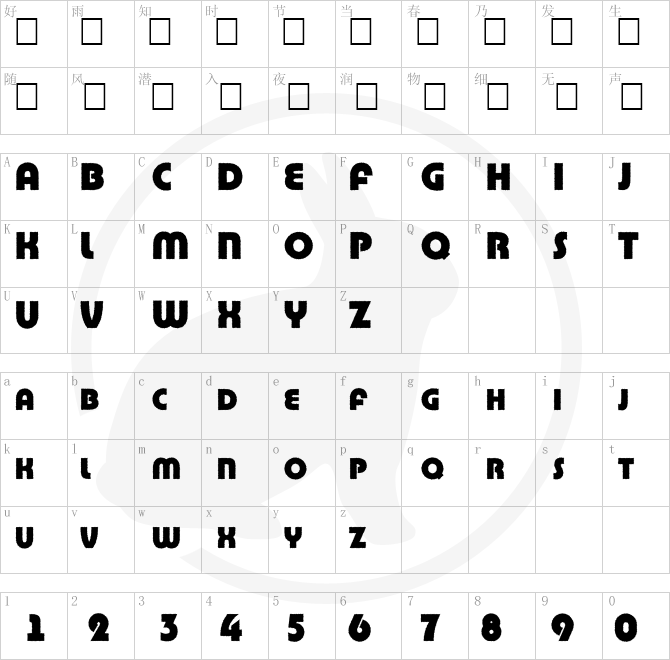
- Font Name:a_BighausTitulRg
a_BighausTitulRg-ExtraBold.ttf is a very beautiful artistic font, a_BighausTitulRg-ExtraBold.ttf is widely used in the design and printing of various books and pictures,a_BighausTitulRg-ExtraBold.ttf has a strong visual impact,a_BighausTitulRg-ExtraBold.ttf is a commonly used font in newspapers, magazines and books, and is used in posters, e-commerce Poster design, store design, logo design, font design and other fields.a_BighausTitulRg-ExtraBold.